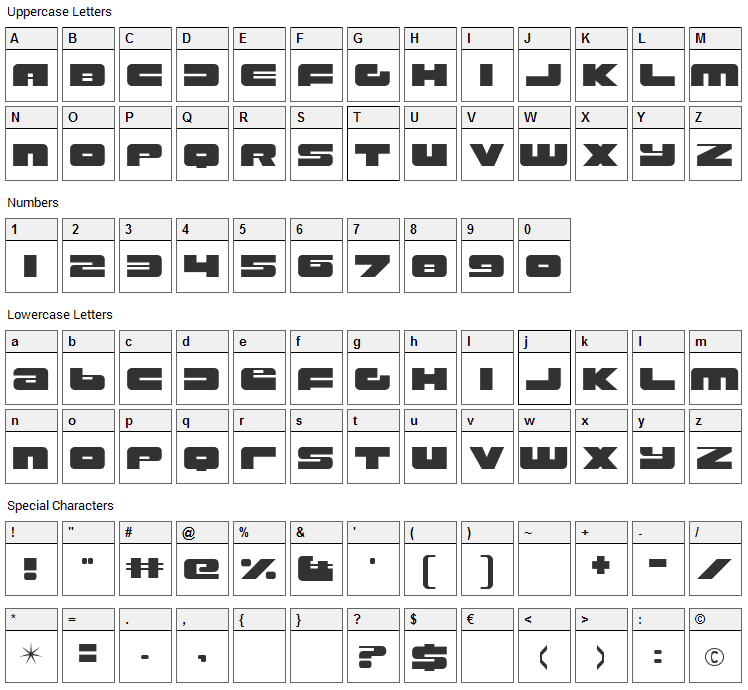
Rustproof Body Font
Rustproof Body is an industrial funk headliner inspired by stainless steel and wheels.
The capital B renders as a lowercase b... What am I missing? The character map on this page shows that it can produce a capital B.